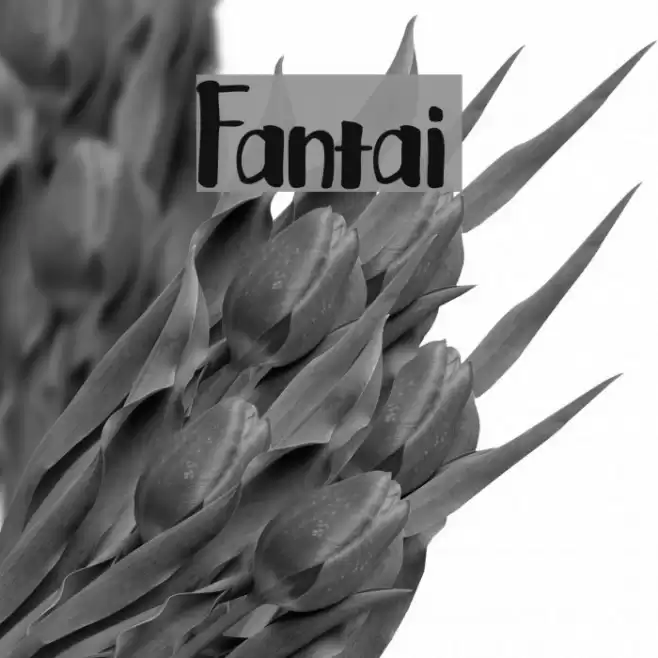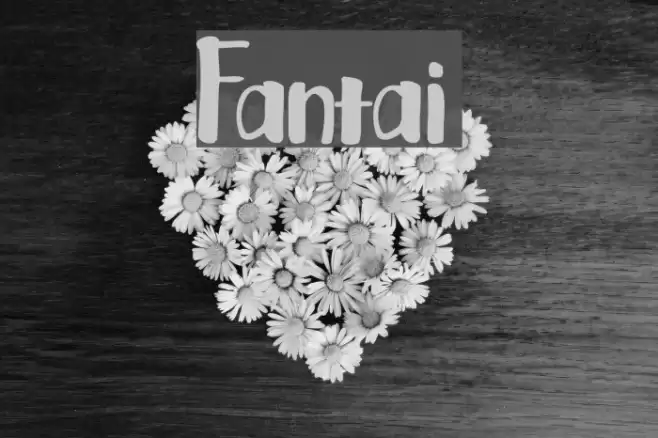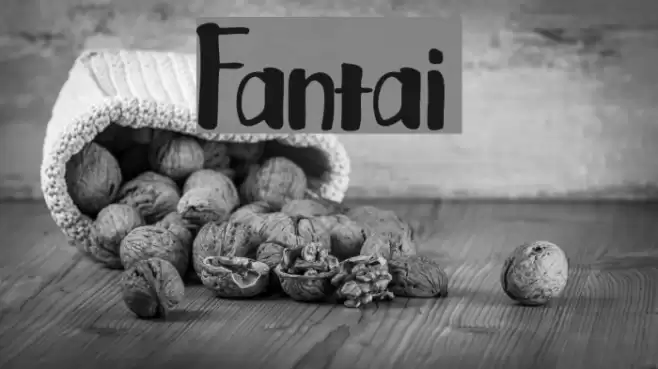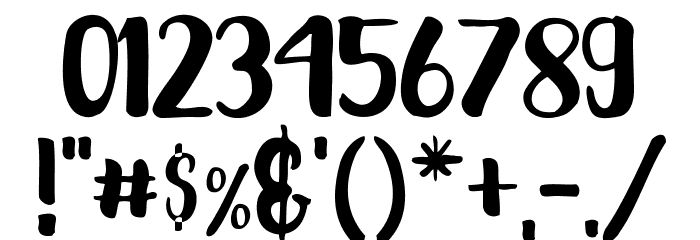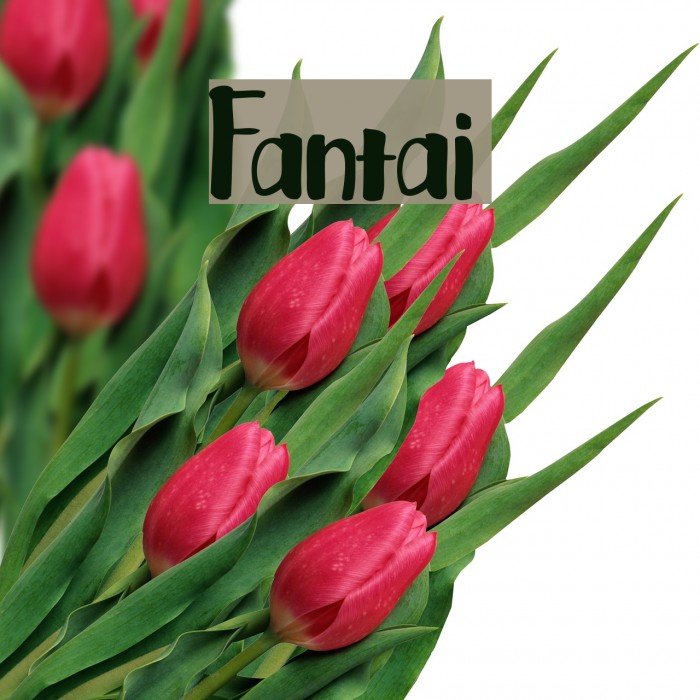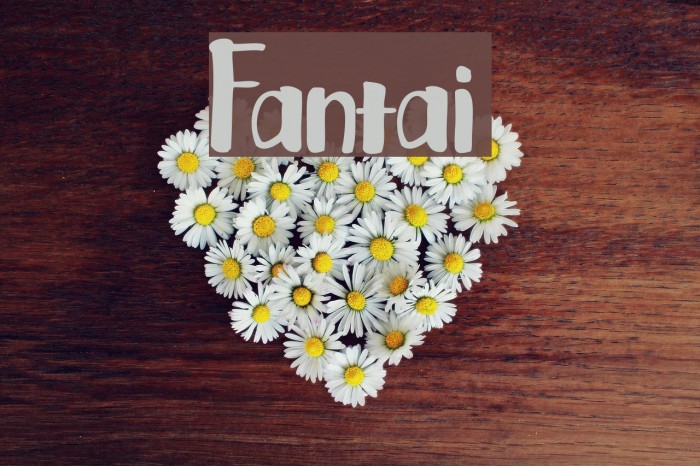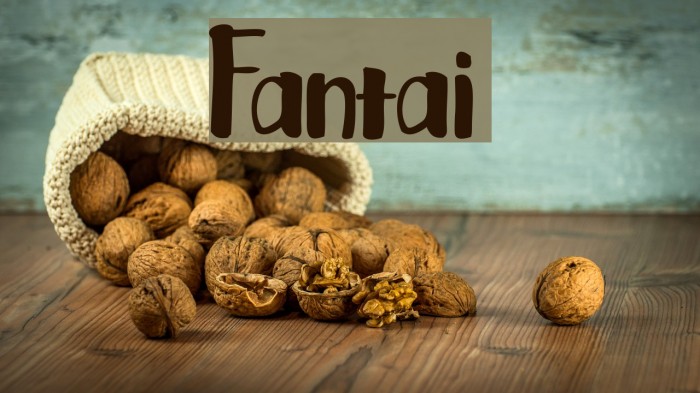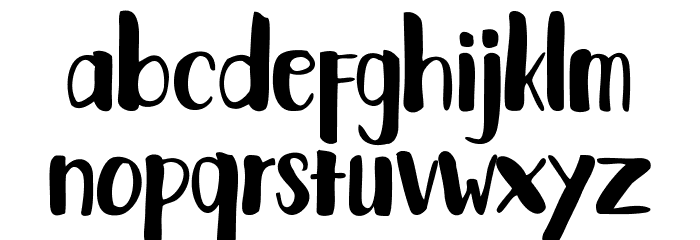
Fantai Font
Fantai Description
This font features a bold and playful design with a handwritten style that exudes a sense of whimsy and creativity. The letters are characterized by their thick strokes and rounded edges, giving them a friendly and approachable appearance. The uppercase letters are slightly taller and more pronounced, while the lowercase letters maintain a consistent flow with a slight slant, adding to the casual feel. The numbers are equally bold, ensuring readability and consistency across different uses. Special characters are designed with the same playful touch, making them suitable for a variety of creative projects.
A bold, playful handwritten font with thick strokes and rounded edges from Uncategorized fonts.
- Proposed Projects: Ideal for children's books, playful branding, greeting cards, and creative posters.
- Overall Style: Playful